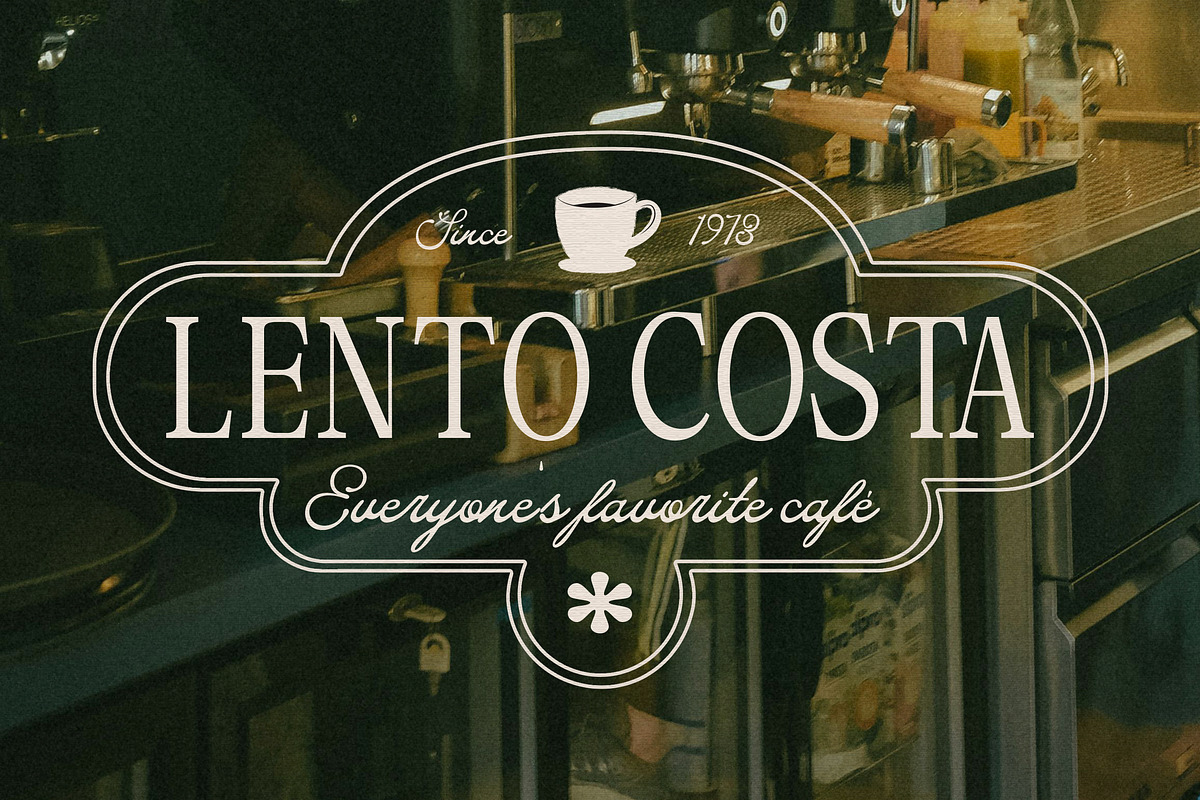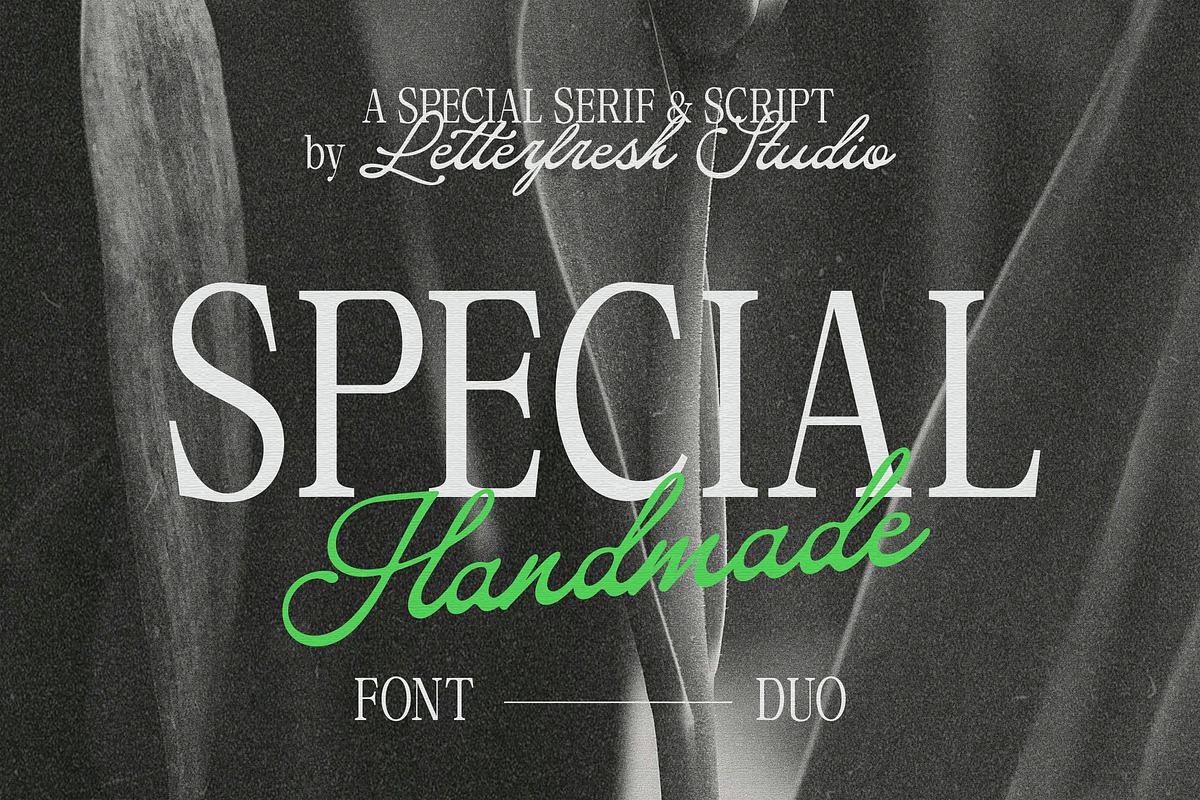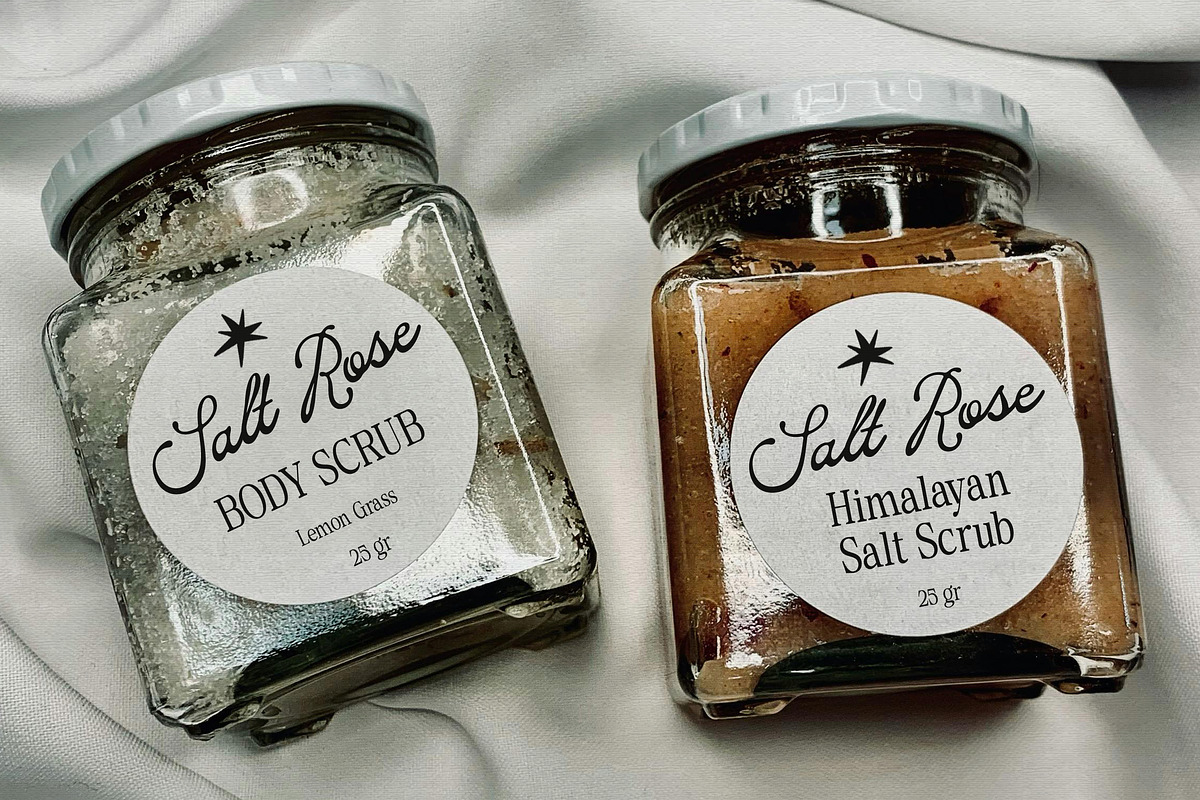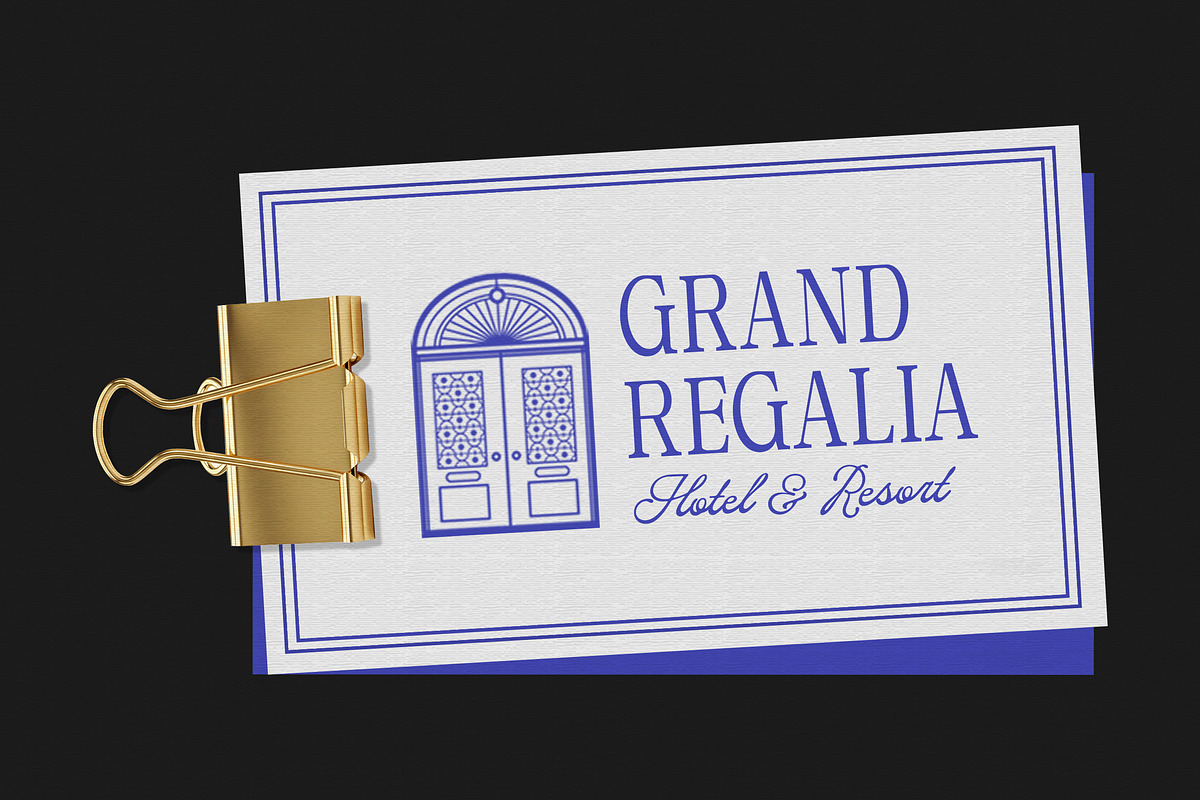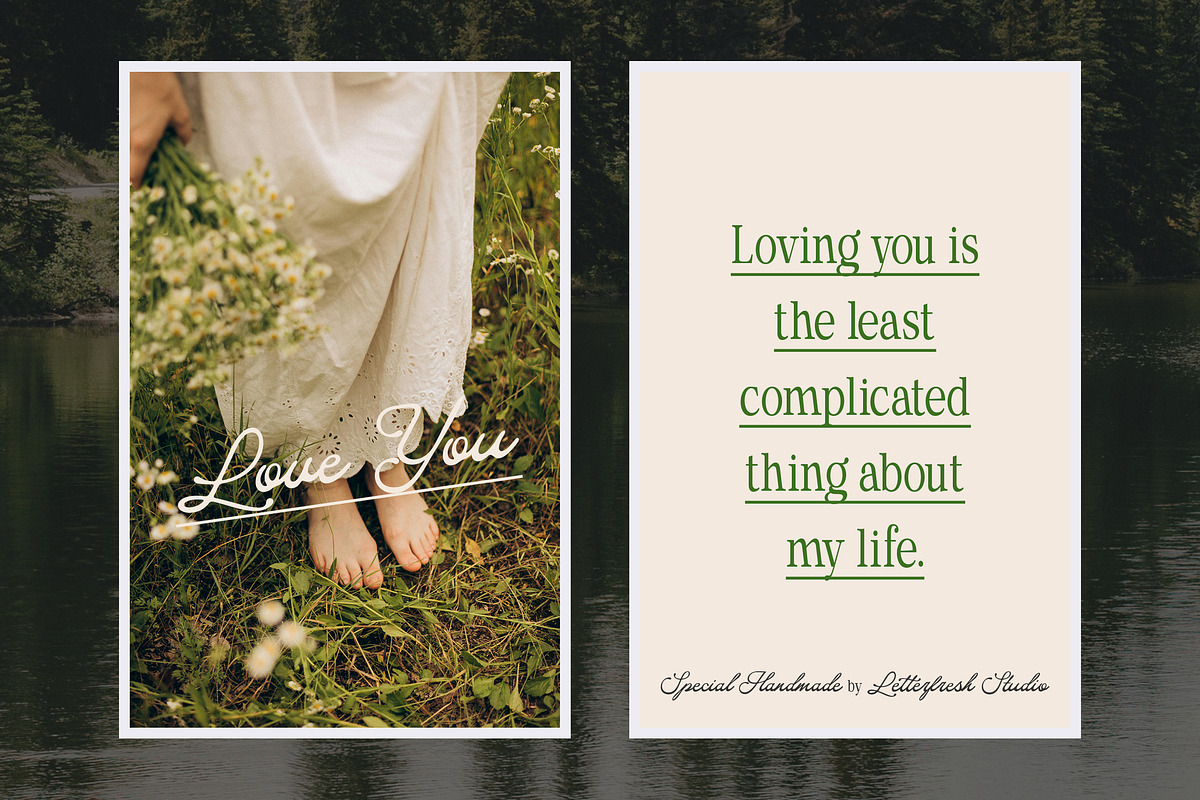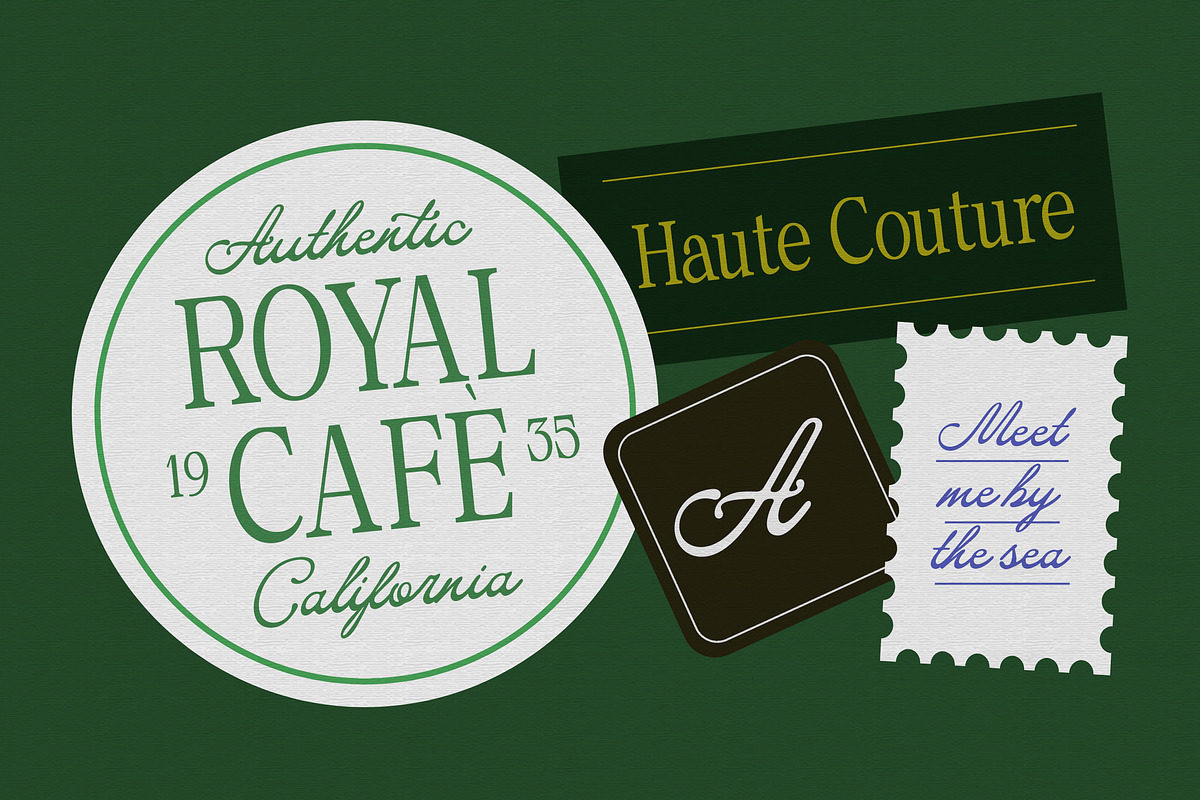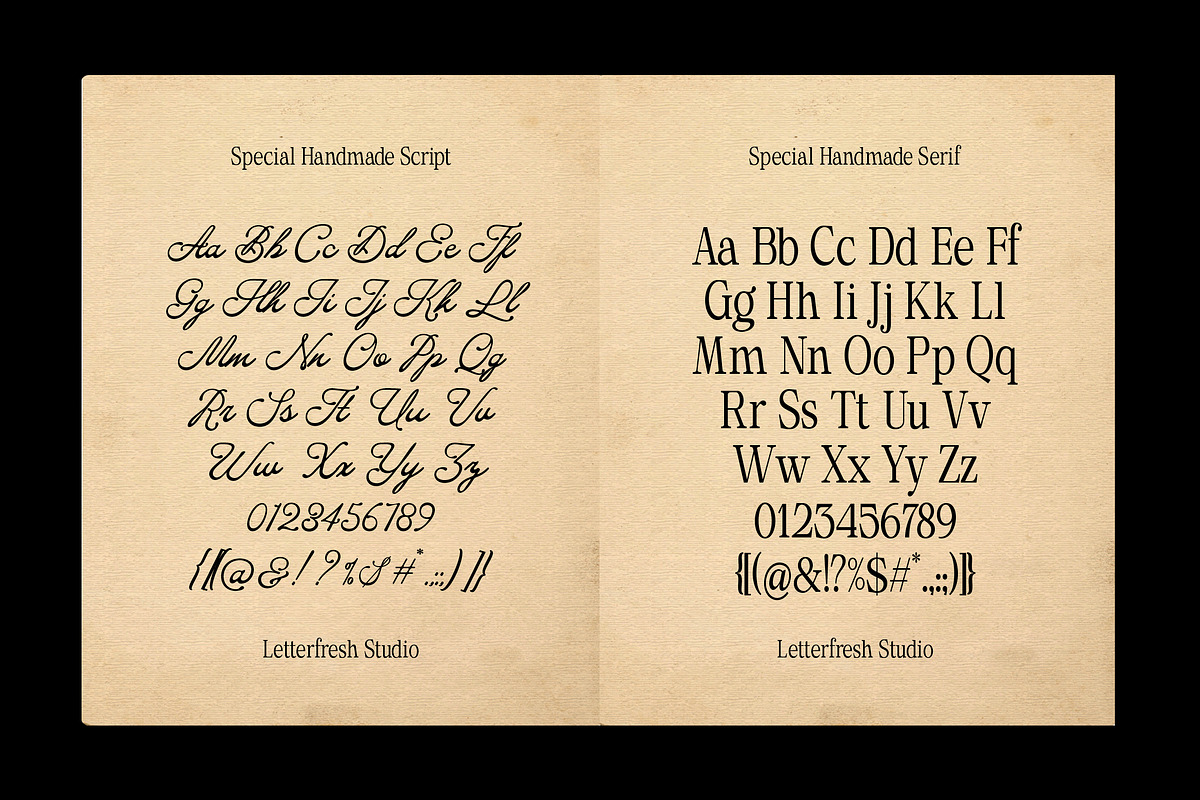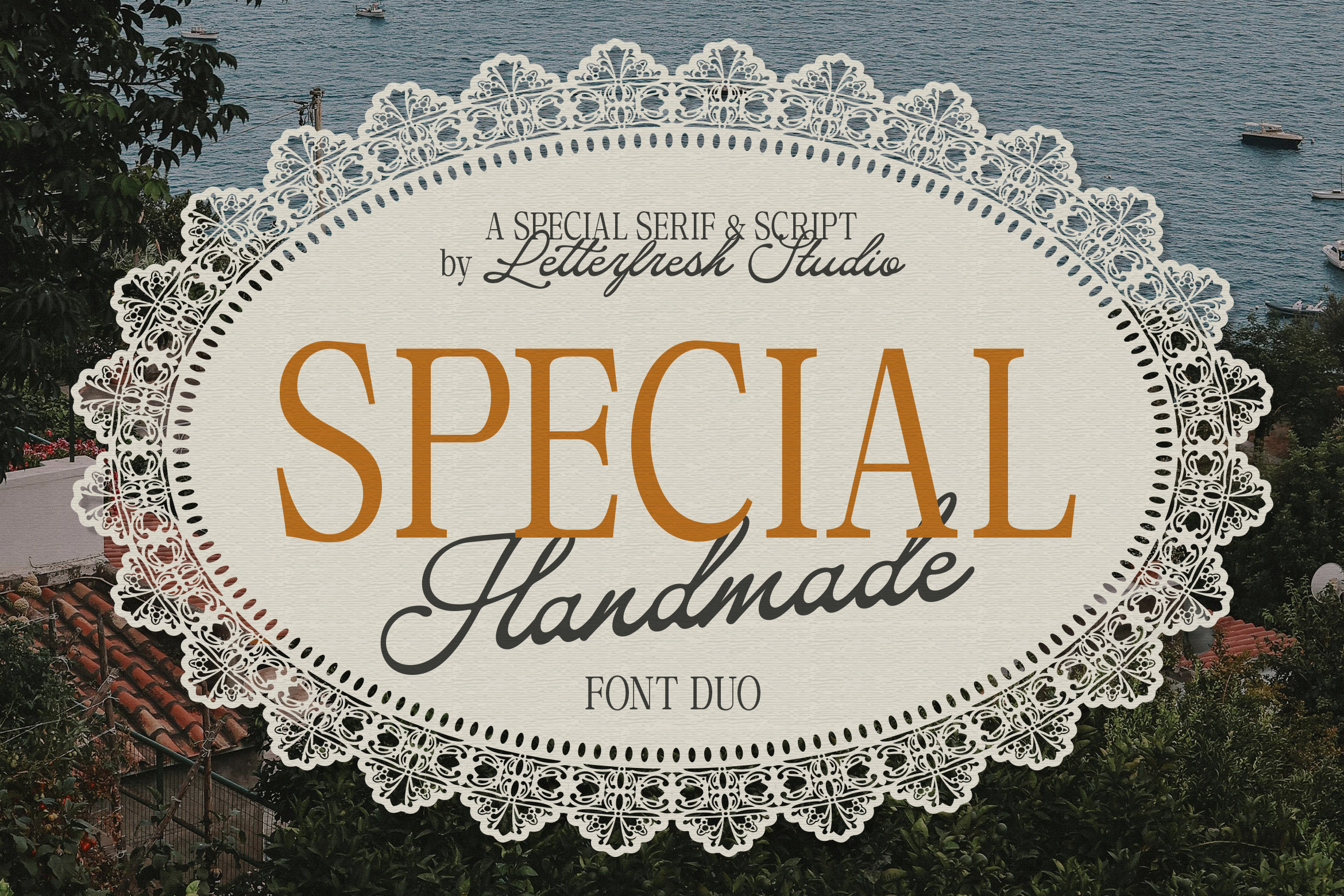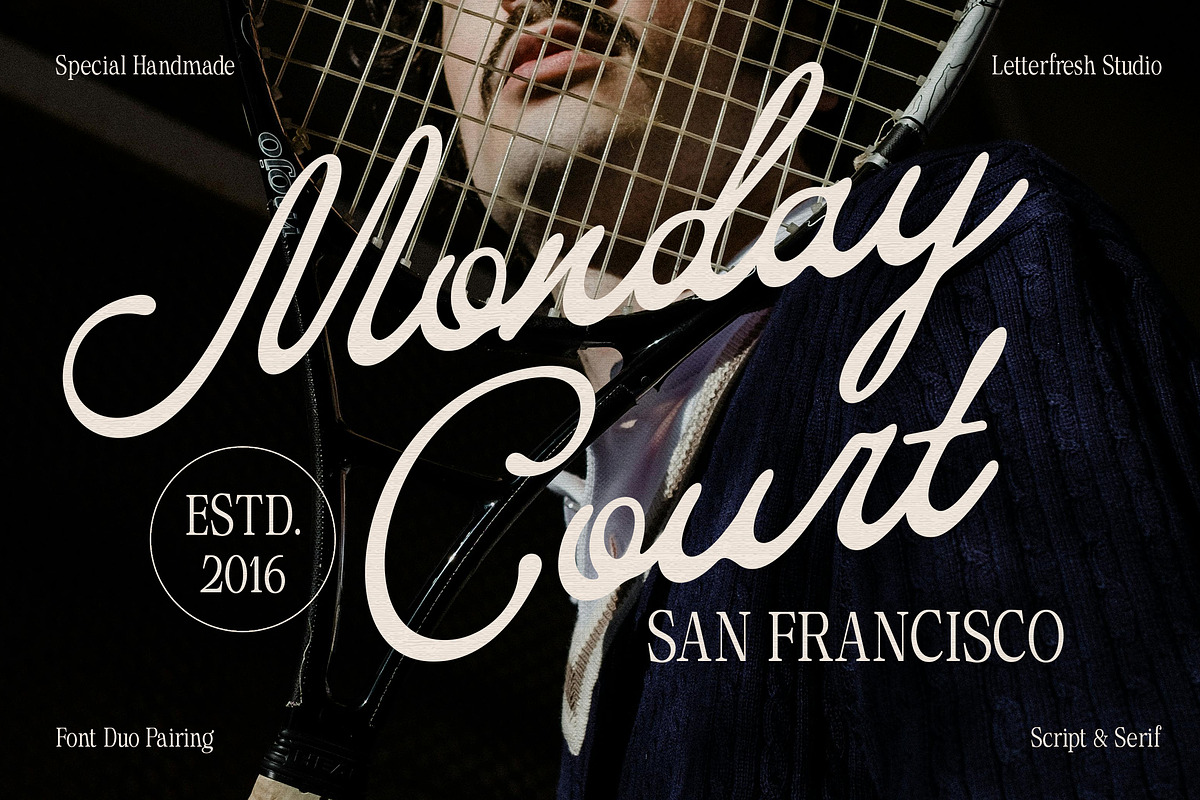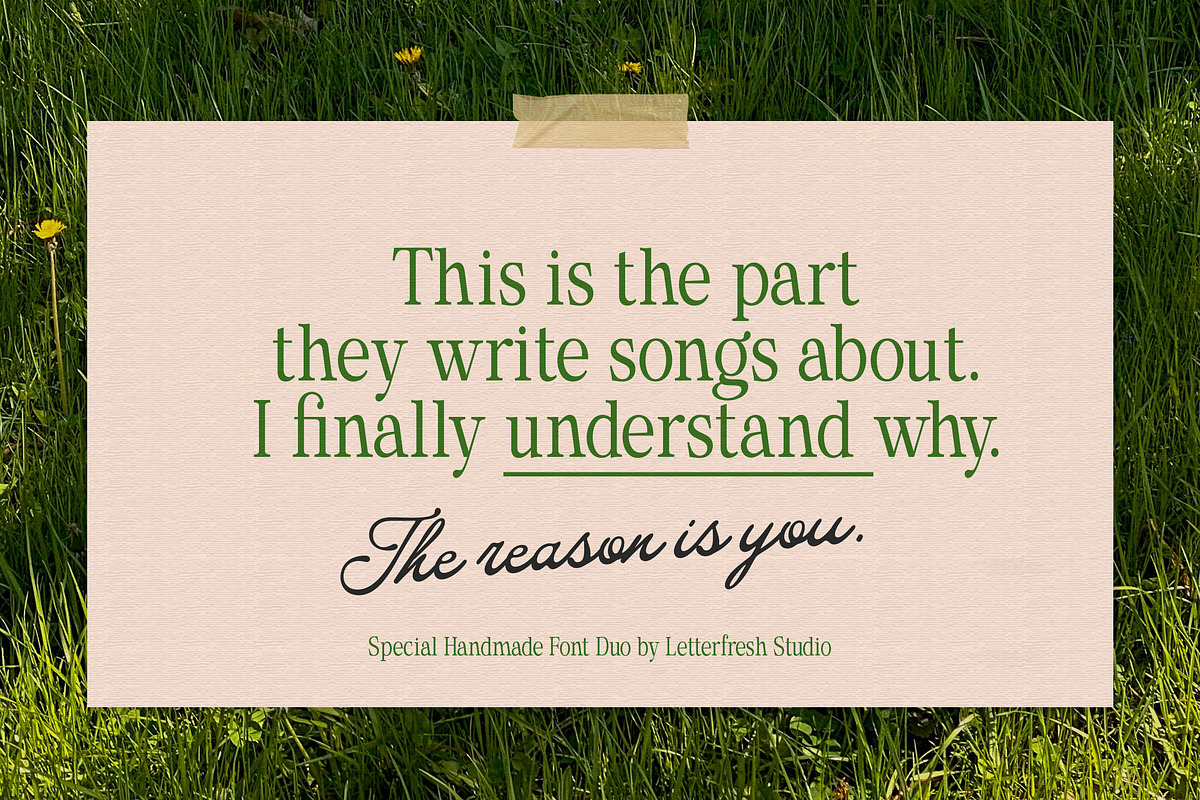
Special Handmade | Font Duo
Special Handmade is an elegant duo font that combines a flowing, romantic handwriting style with a timeless vintage serif style—designed to bring elegance, warmth, and effortless charm to any design.
Perfect for branding, wedding stationery, packaging, editorial, and social media, Special Handmade offers a versatile typographic voice that feels both intimate and timeless. Every detail, from the subtle curves to the carefully designed alternates, is crafted to elevate your work with a graceful, handmade touch.